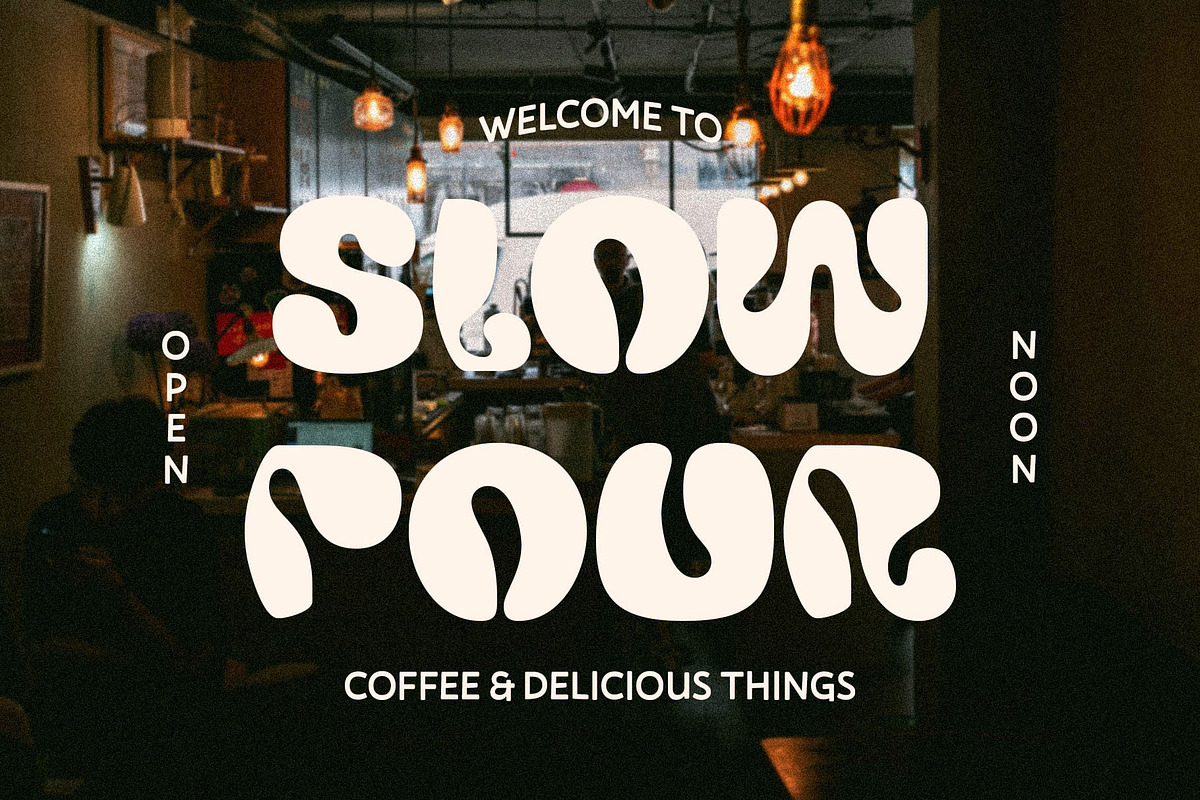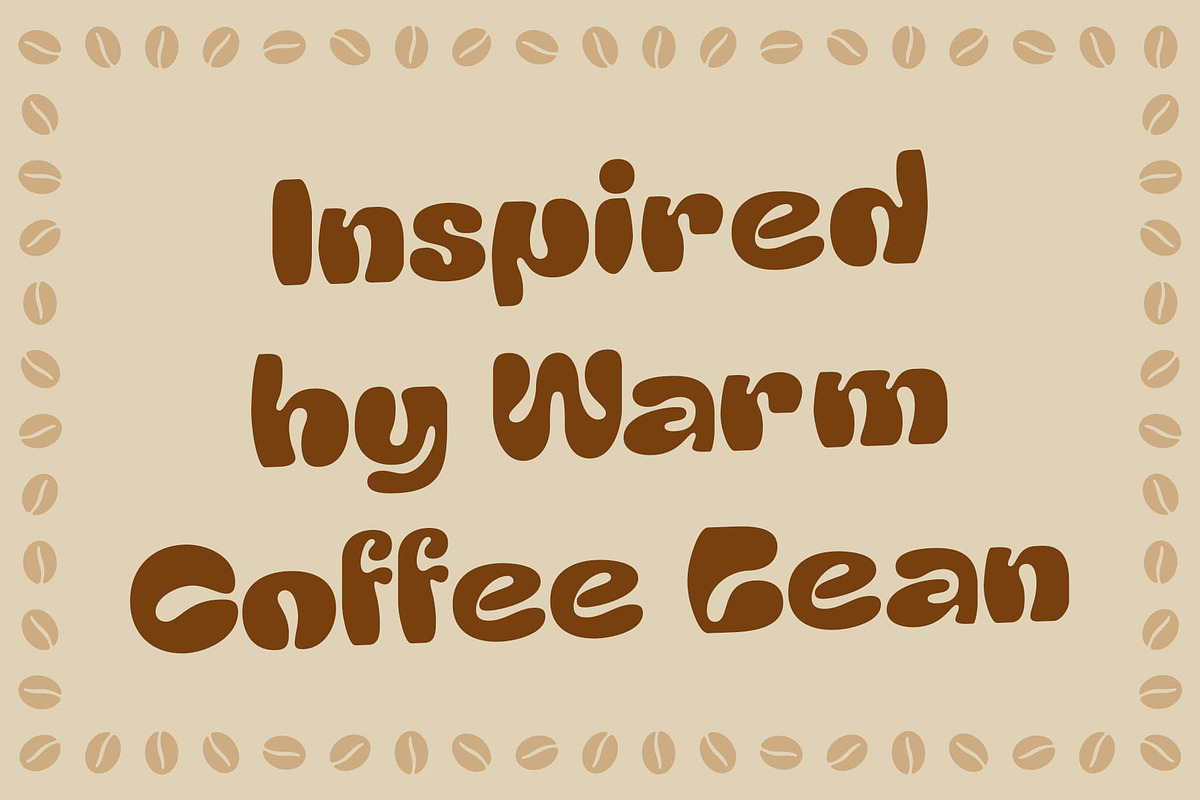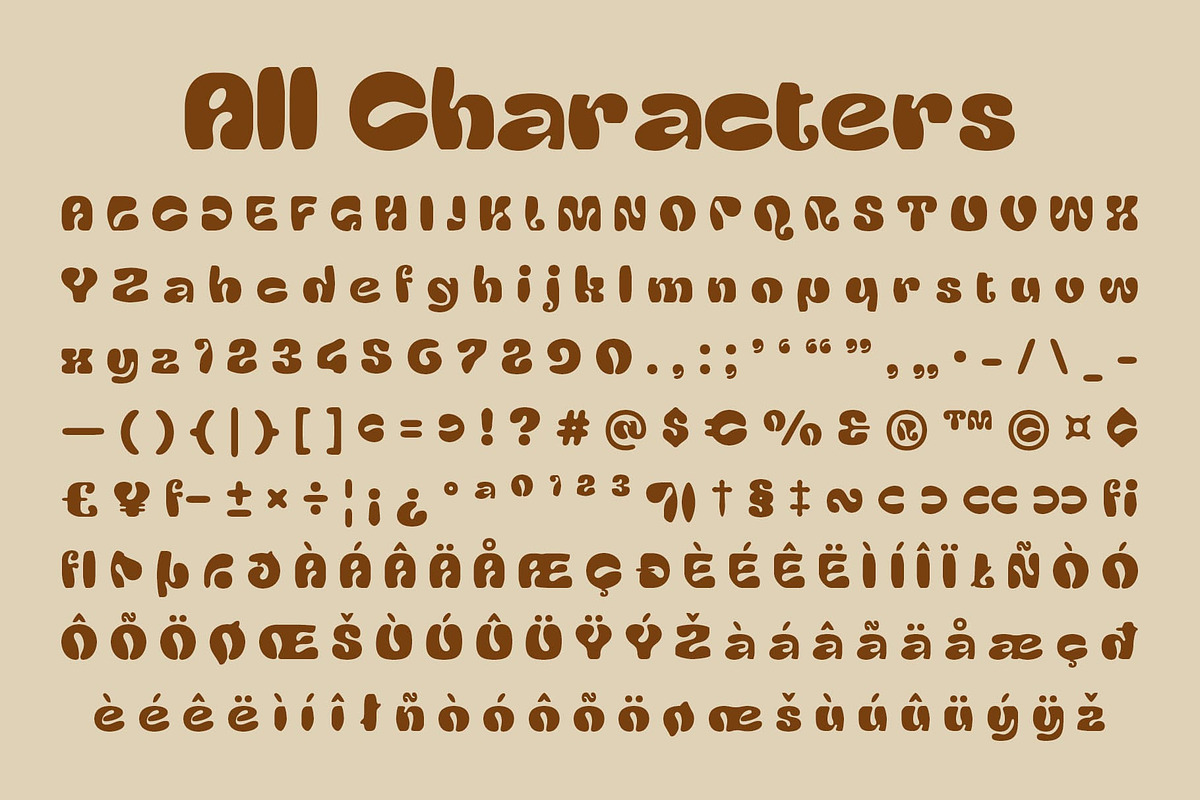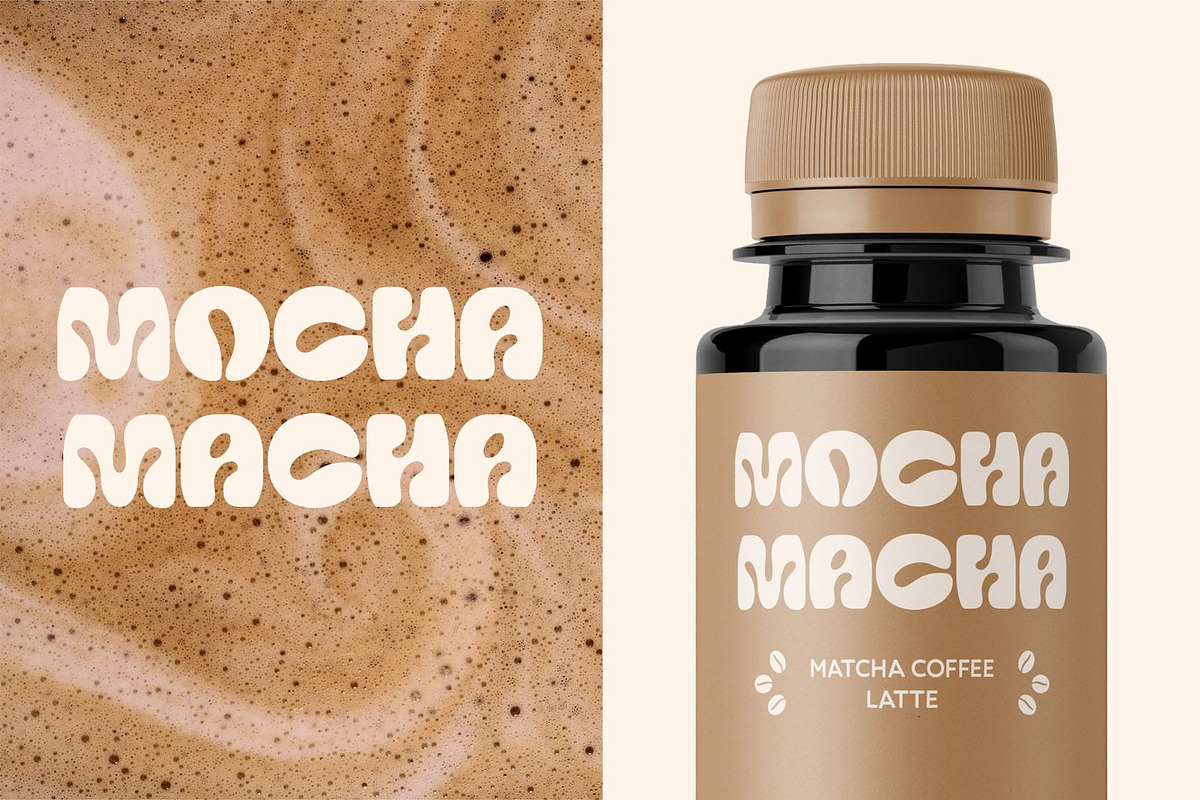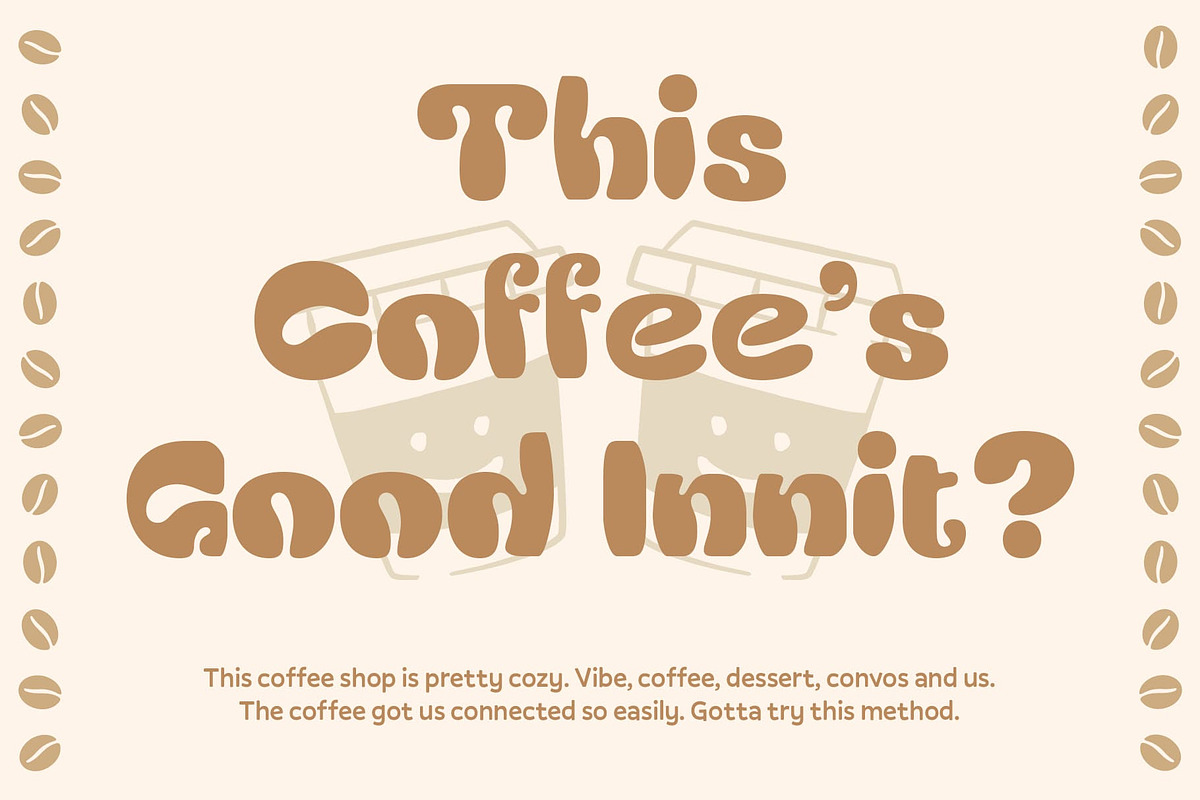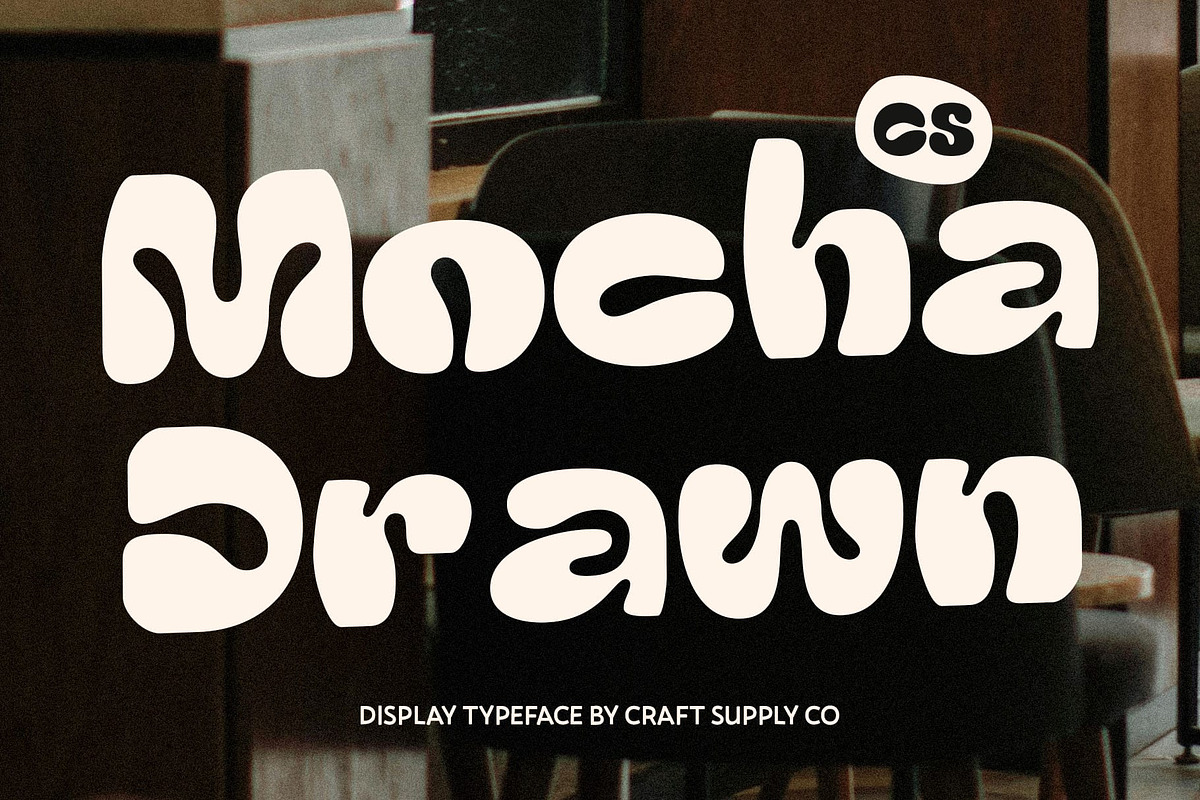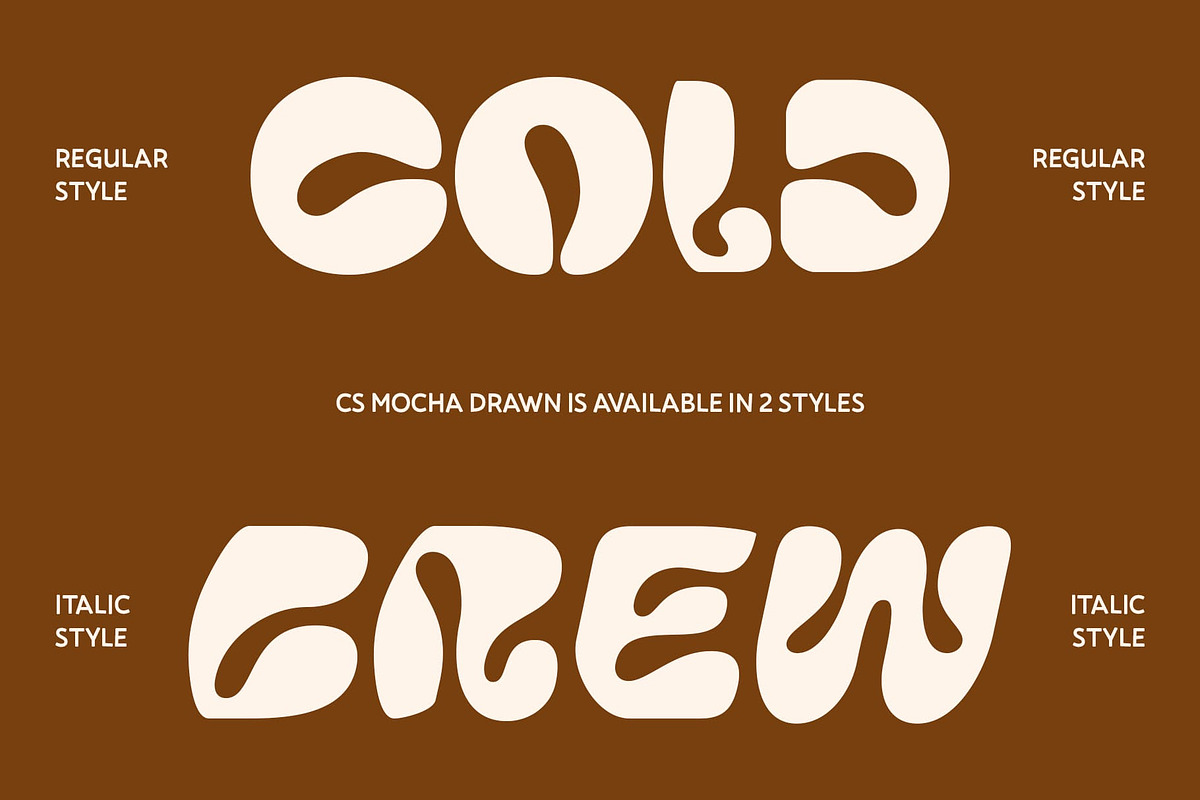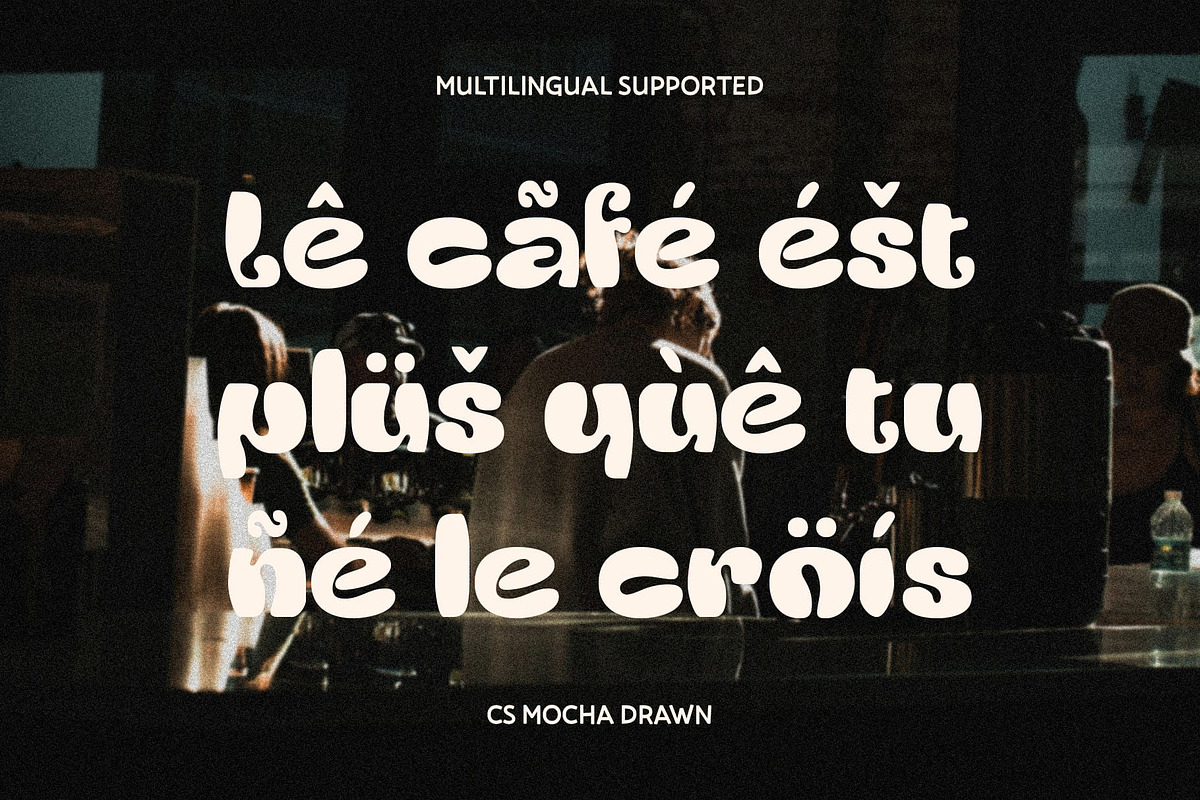
CS Mocha Drawn
CS Mocha Drawn – Playful Coffee-Inspired Typography
Unique Coffee-Inspired Shapes CS Mocha Drawn is a decorative display font designed with bold, rounded letterforms that resemble coffee beans. This creative touch gives the typeface a warm, fun, and quirky personality, instantly making it recognizable and full of character. Its chunky style makes text appear lively and dynamic, while maintaining a bold visual presence.
Hand-Drawn Texture for Organic Appeal The drawn effect adds a handcrafted texture that feels authentic and artistic. Instead of looking too polished or mechanical, this casual and friendly font embraces imperfection, offering a handmade quality that feels friendly, natural, and approachable. This artisanal vibe enhances its expressiveness and sets it apart from standard display fonts.
Perfect for Cheerful and Creative Projects With its playful design, this energetic and bold font is an excellent choice for projects that want to feel cheerful, energetic, and unique. It works beautifully for creative branding, coffee-themed packaging, posters, or any visual project where you want to capture joy, warmth, and originality. The combination of its bold presence and funky details ensures your message won’t go unnoticed.
Expressive, Cute, and Standout This cheerful font balances decorative flair with strong readability, making it both practical and imaginative. Whether you’re designing a fun logo, an eye-catching poster, or vibrant merchandise, this font adds a standout personality that instantly communicates creativity and playfulness.